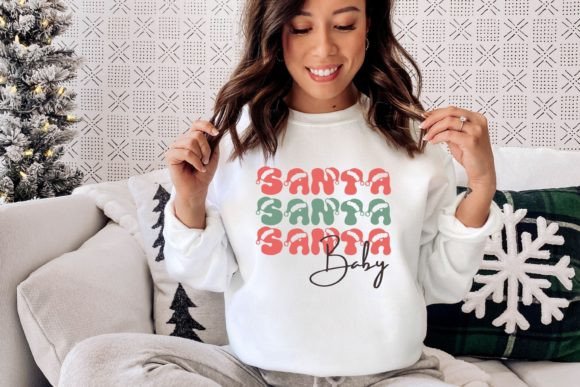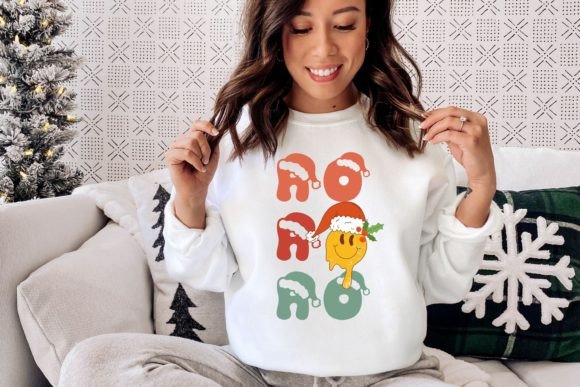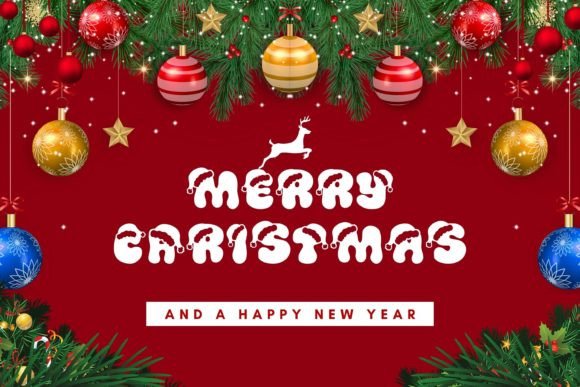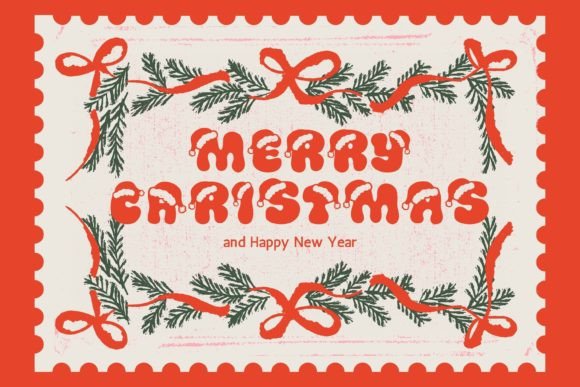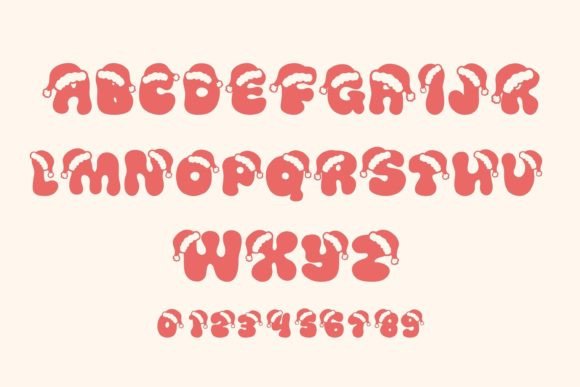
Introduction to Santa Santa Font
As the holiday season approaches, designers are eager to add a dash of festive cheer to their creative projects. You know the moment – you’re brainstorming ideas for a holiday design, and suddenly, a jolly old idea strikes: what if your typography could spread holiday cheer? That’s where the enchanting Santa Santa Font comes in – a free download that’s sure to become your new favorite design resource.
With its charming, high-quality design, the Santa Santa Font is the perfect addition to any festive project. Each letter is carefully crafted with Santa’s iconic red hat, creating a transparent background that lets your design shine. Whether you’re creating holiday-themed invitations, greeting cards, or graphics, this font is a joy to work with, and its transparent background makes it easy to layer with other design elements.
Key Features of Santa Santa Font
- Unique Christmas-themed design perfect for creative projects and holiday-themed graphics.
- High-quality font with transparent background, ideal for use on various backgrounds and design elements.
- Available in a range of sizes, with scalable vector graphics (SVG) for crisp and clear display at any resolution.
- Perfect design resource for graphic designers, digital artists, and anyone looking to add a festive touch to their projects.
- Designed with attention to detail, the Santa Santa Font is a versatile and creative asset for any holiday-themed project or design.
- With its transparent background and high-quality design, the Santa Santa Font is perfect for use in digital art, graphic design, and other creative projects.
Honest Review: Santa Santa Font
I recently stumbled upon the Santa Santa Font, and I must say it’s been a delightful addition to my design project. ✨ This free download offers a unique and playful twist on the traditional Christmas theme, making it perfect for creative projects like holiday cards, gift tags, or social media graphics.
- High-quality design: The font is crisp and clean, with a transparent background that makes it easy to layer over other design elements.
- Fun and festive: The Santa Santa Font is sure to add a touch of whimsy to any design, making it perfect for designers looking to add some personality to their work.
Overall, I’m really impressed with the Santa Santa Font. It’s a fun and creative design resource that’s perfect for adding a touch of holiday cheer to any project. With its high-quality design and transparent background, it’s a great addition to any designer’s toolkit.
Santa Santa Font
The Santa Santa Font is a unique and fun design resource perfect for creative projects. This high-quality font features a transparent background, making it easy to integrate into various design applications.